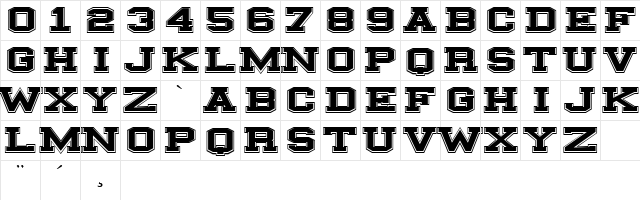
ILLINOIS block Regular
Design Context for ILLINOIS block Typeface
ILLINOIS block is a composed and adaptable typeface that performs quietly and consistently across a wide range of design contexts.
Pro Tip: Use ILLINOIS block in both headline and body roles to test its range before committing to a single application.